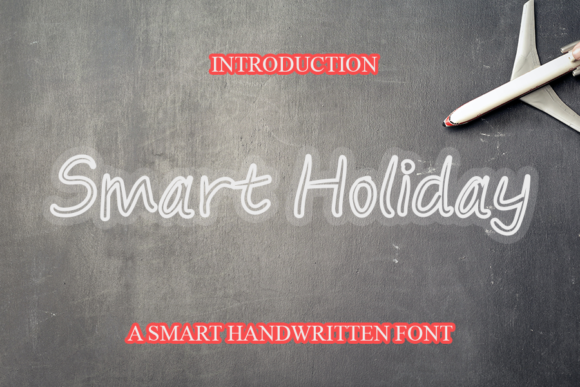
Fill your designs with delight and cheer with Smart Holiday, a charming display font crafted with meticulous precision. Dive into a world of handwritten bliss, where each letter dances across the page with effortless grace. Its trendy aesthetic exudes a playful spirit that will ignite the joy within your creative endeavors.
With Smart Holiday, your words transform into vibrant expressions of happiness. Whether you're crafting heartwarming letters, designing whimsical invitations, or adding a touch of whimsy to your social media posts, this font will effortlessly elevate your creations. Its smooth curves and spirited strokes capture the essence of handwritten joy, making every word a celebration.
Imagine the smiles that will bloom as your loved ones receive letters penned with Smart Holiday's heartwarming charm. Its playful nature will spark laughter and spread joy wherever it goes. Enchant your designs with this font's captivating presence, and witness the transformative power it holds.
Smart Holiday is not just a font; it's a gateway to a world of creative possibilities. Unleash your imagination and let this font guide you on a whimsical journey where every word becomes a masterpiece. Its versatility knows no bounds, making it the perfect companion for a myriad of design adventures.
Embrace the spirit of Smart Holiday and watch as your designs blossom with a touch of handwritten magic. Its modern flair and captivating charm will leave an unforgettable impression on all who encounter it. Discover the joy of writing with Smart Holiday today and let your creativity soar to new heights of delight.